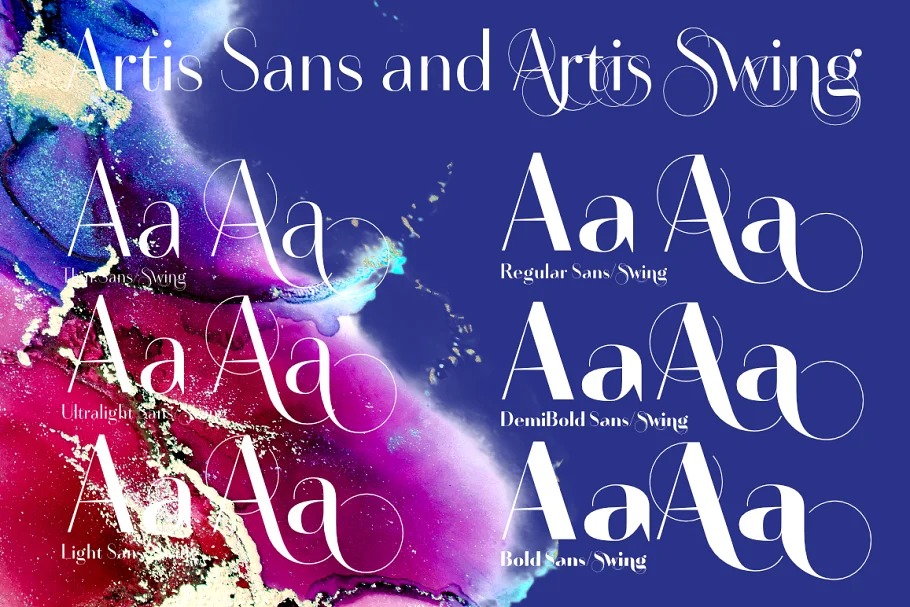
Artis Font Family
Artis Sans Serif Font
It’s a sweet classic serif that focuses on legible, clean and useful for any project. But – »Artis« is a twin-font that has an elegantly decorated twin sister »Artis-Swing«. Between the 2 fonts you have endless possibilities for combination. I love these twins!
It is a great everyday workhorse with seven weights from ExtraLight to Bold and all the necessary weights in between. Great for short copy and elegant headlines!
With 964 Glyphs it is a truly European font designed for all Central European and Latin using countries. »Artis« has a set of Cyrillic that is – besides Russia – also good for Serbia, Macedonia and Ukraine. It has oldstyle- and lining-, tabular- and tabular-oldstyle-figures and many ligatures.